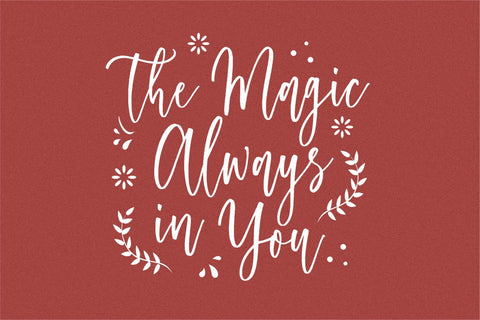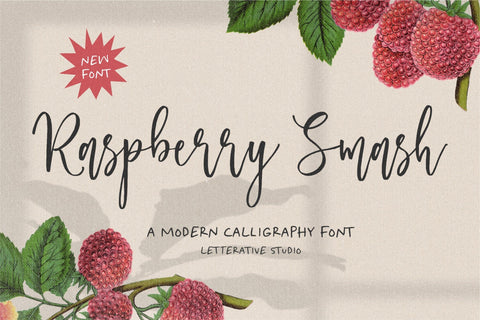
Raspberry Smash Modern Calligraphy Font
Introducing by Letterative Studio : Raspberry Smash Font
Raspberry Smash is a Modern Calligraphy Font
Raspberry Smash is an elegant and beautiful Calligraphy font. Use it for any design projects that require a charming appearance!
Raspberry Smash also multilingual support